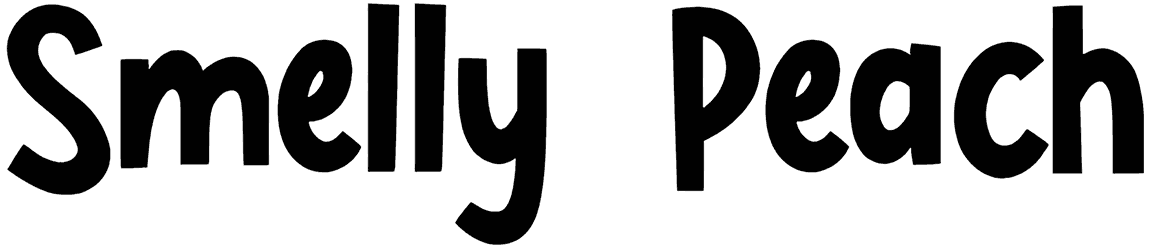
Smelly Peach Font
Choose a playful and cute letter style to trim your design and make it unique. Smelly Peach font is a sticker font with bold and hand-lettering forms that can be a nice choice for any happy-themed design. With the full support of characters in two versions, this decorated sans-serif font will be a funny item for many layouts, like posters, packaging, apparel, etc.